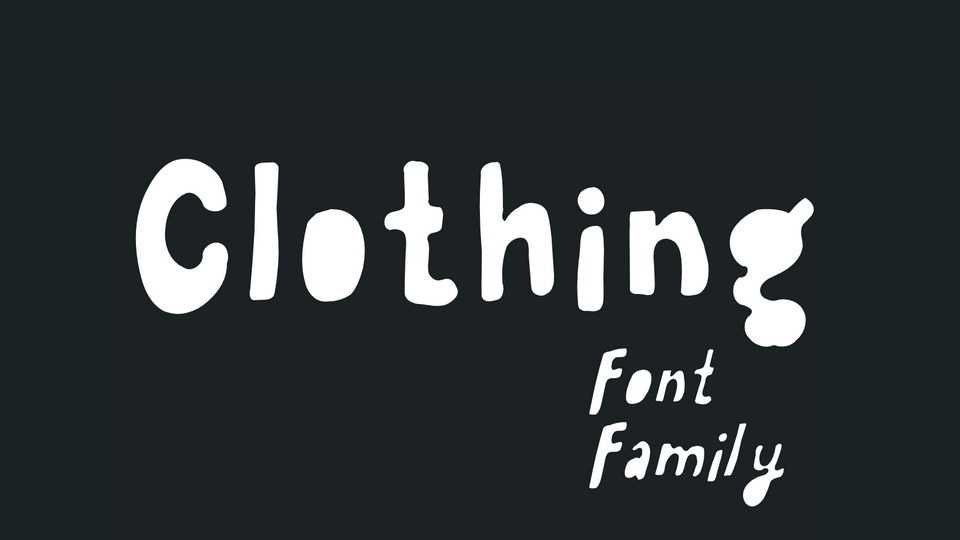
Download PVF Clothing font, a rounded handwritten typeface with the counters and eyes covered. PVF Clothing font is suitable for posters, flyers, tags and other craft projects.
Designer: Petros Vasiadis